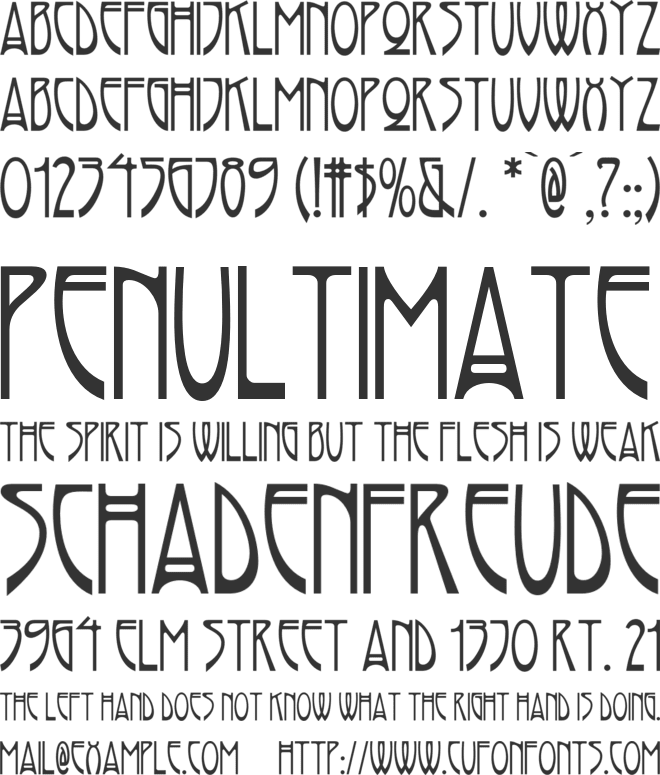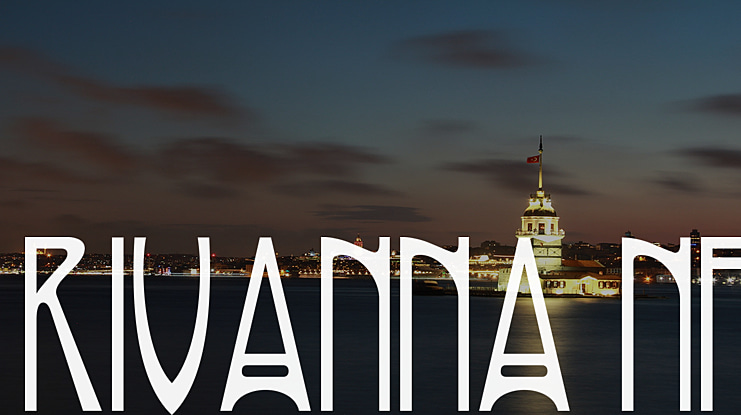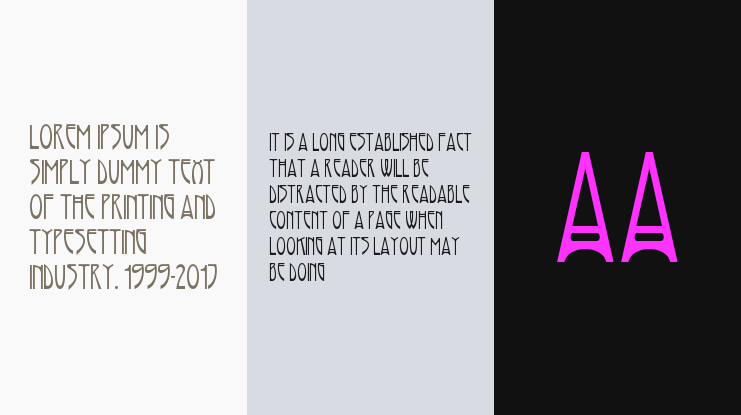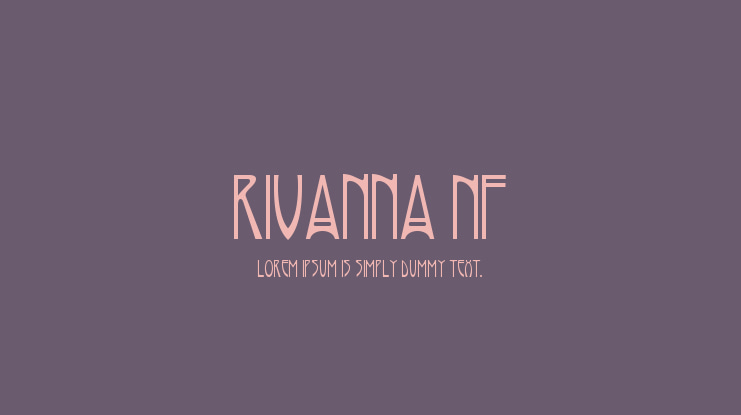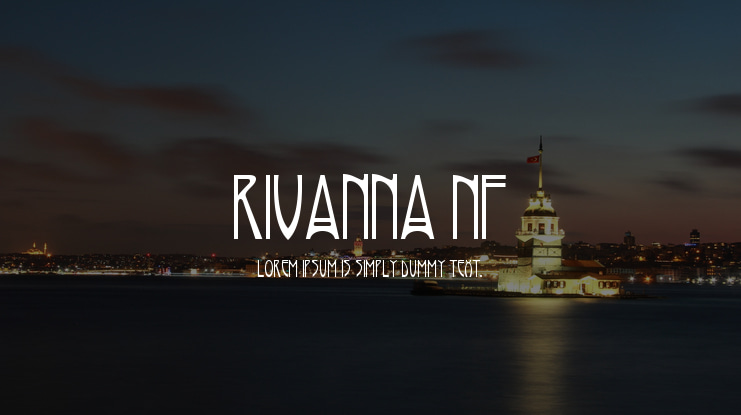
A general-purpose Art Nouveau font that has been kicking around for a while under various names. As usual, redrawn for consistency and economy of line. Named, for no good reason, after the river that flows near Thomas Jeffersonâs home, Monticello.